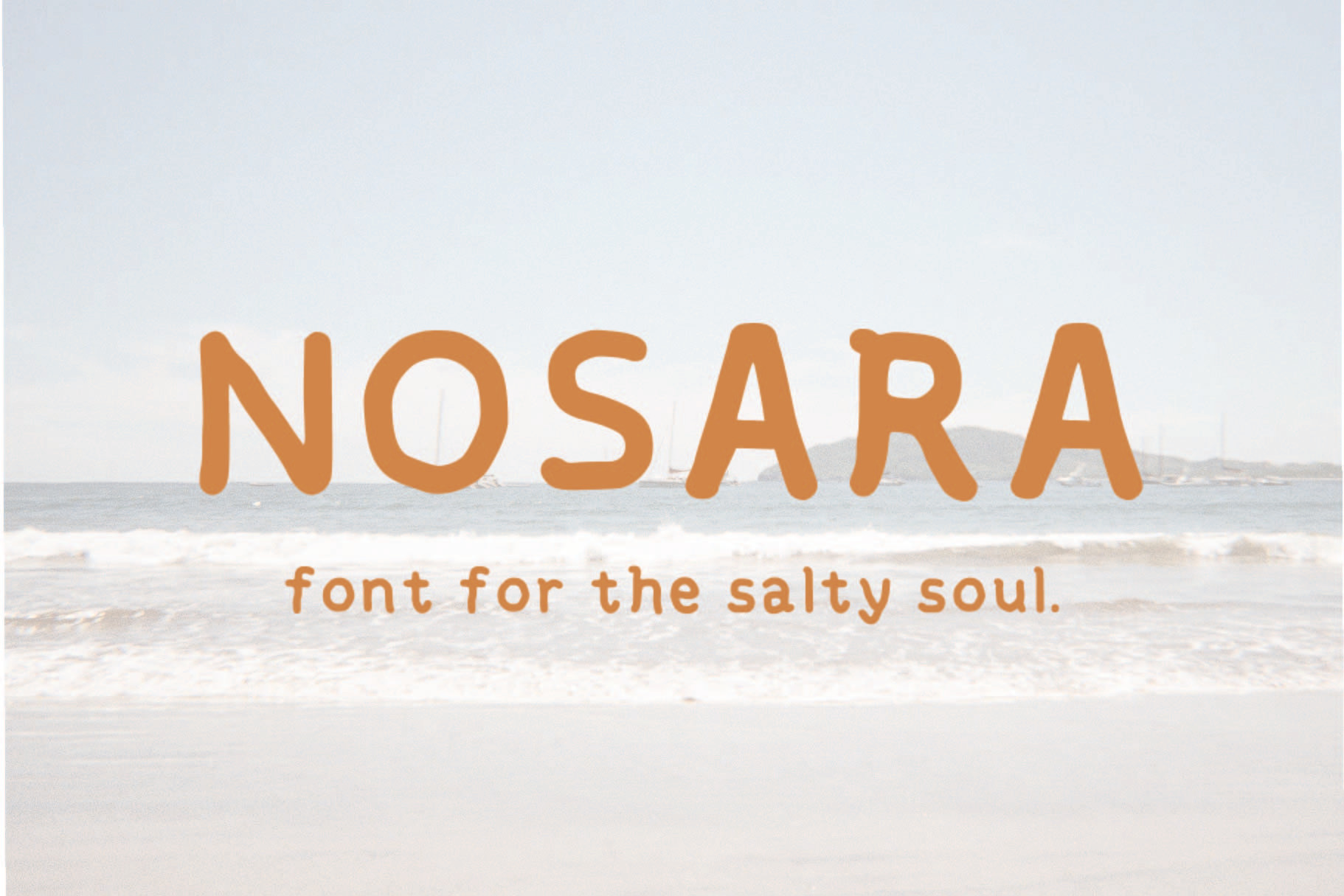
Nosara Type | Handmade Font
Introducing the Nosara Typeface! Nosara is a hand-made typeface that features irregular letter forms with hand-written style, making those organic & tropical-inspired design projects friendly to the eye! Perfect for any salty poster, branding, or illustration project.